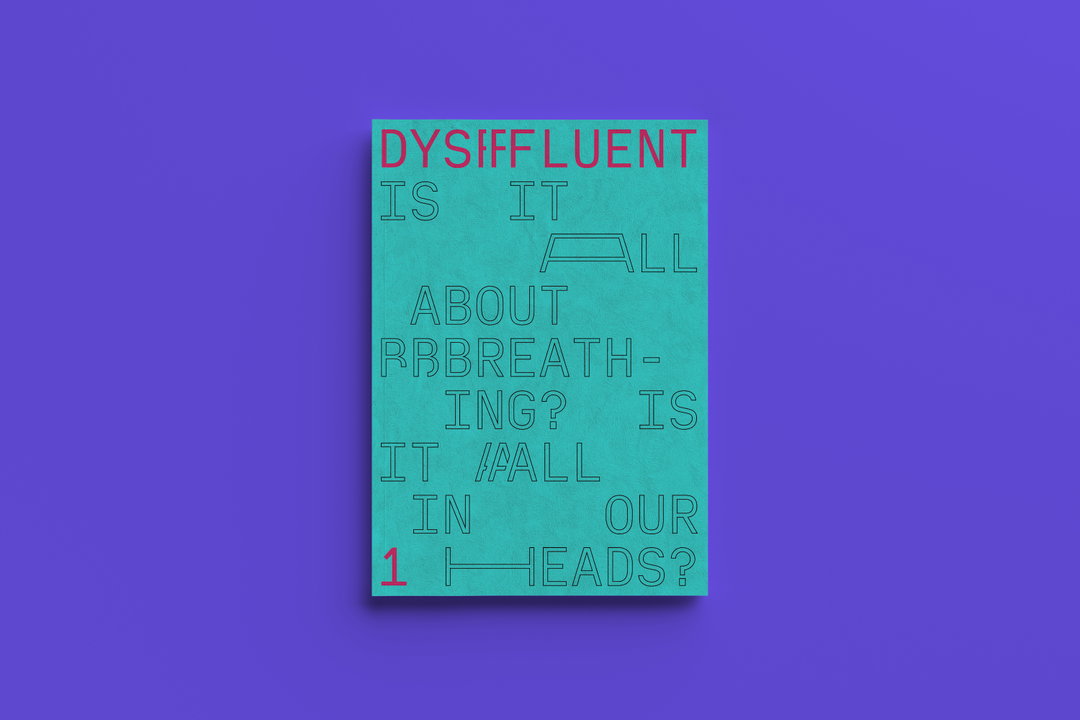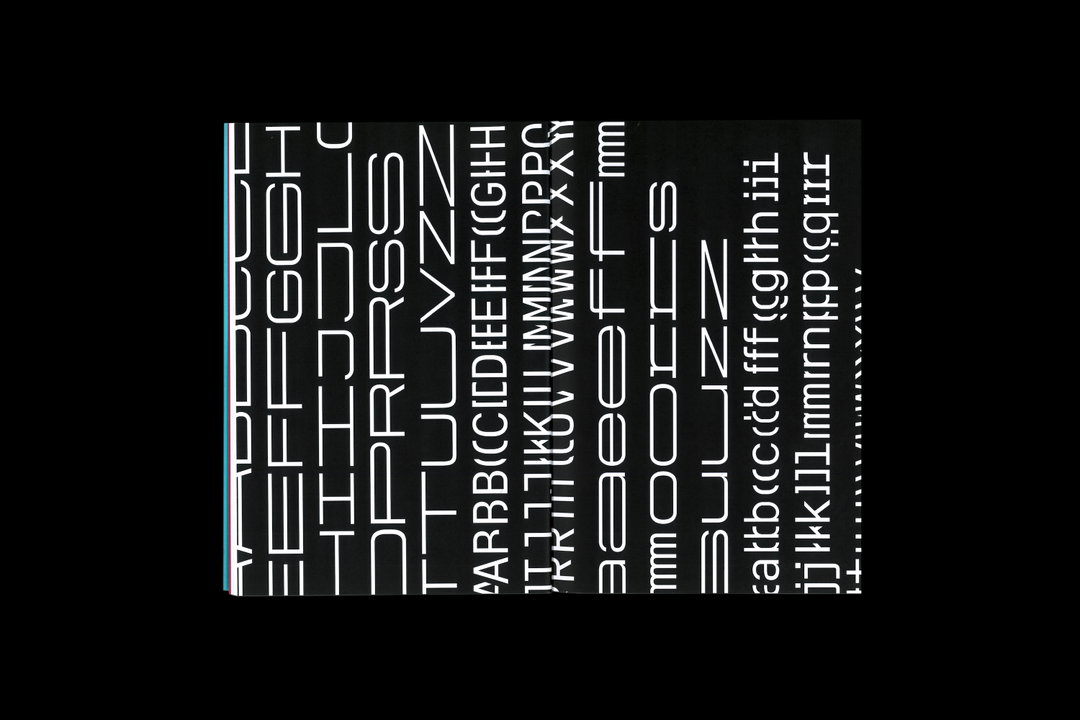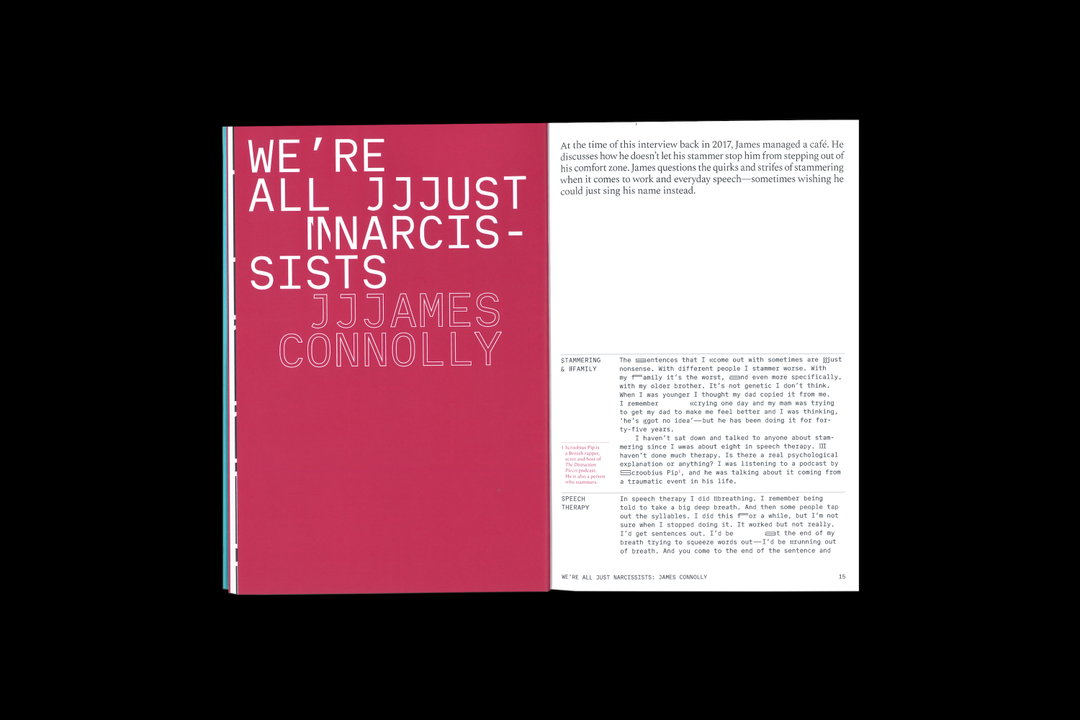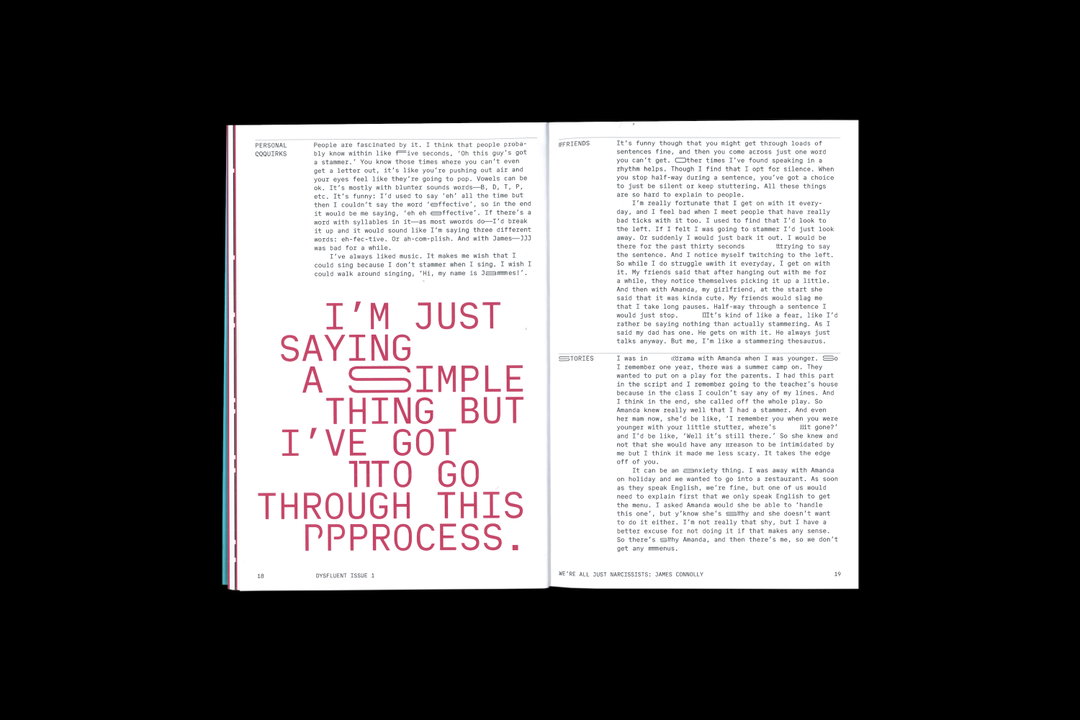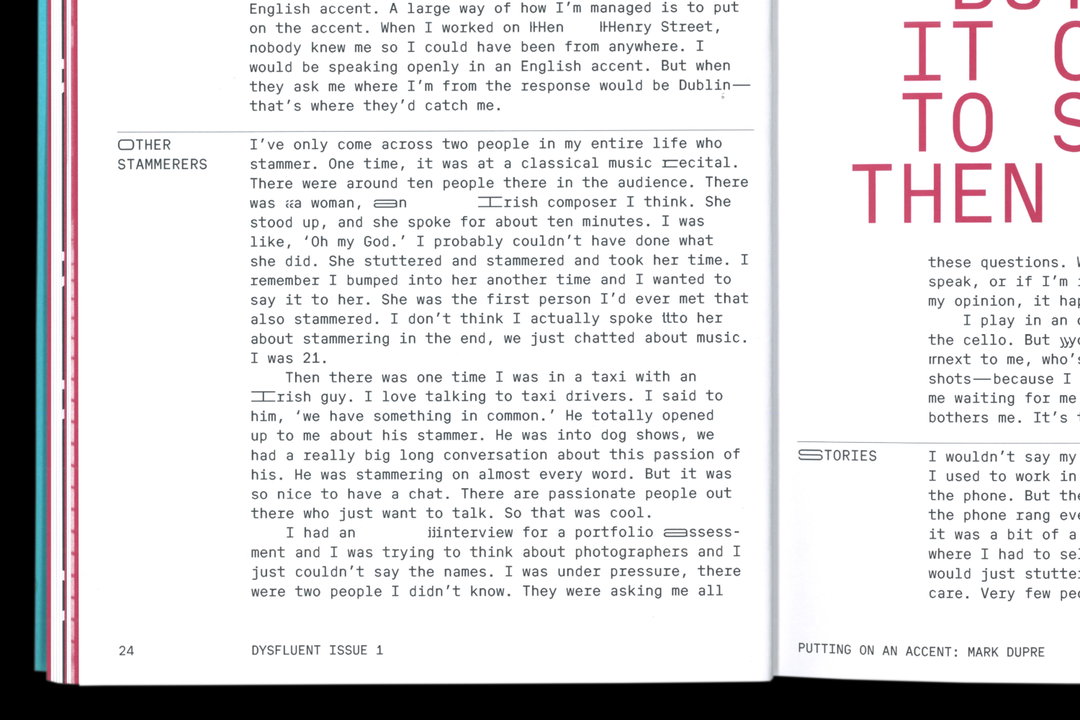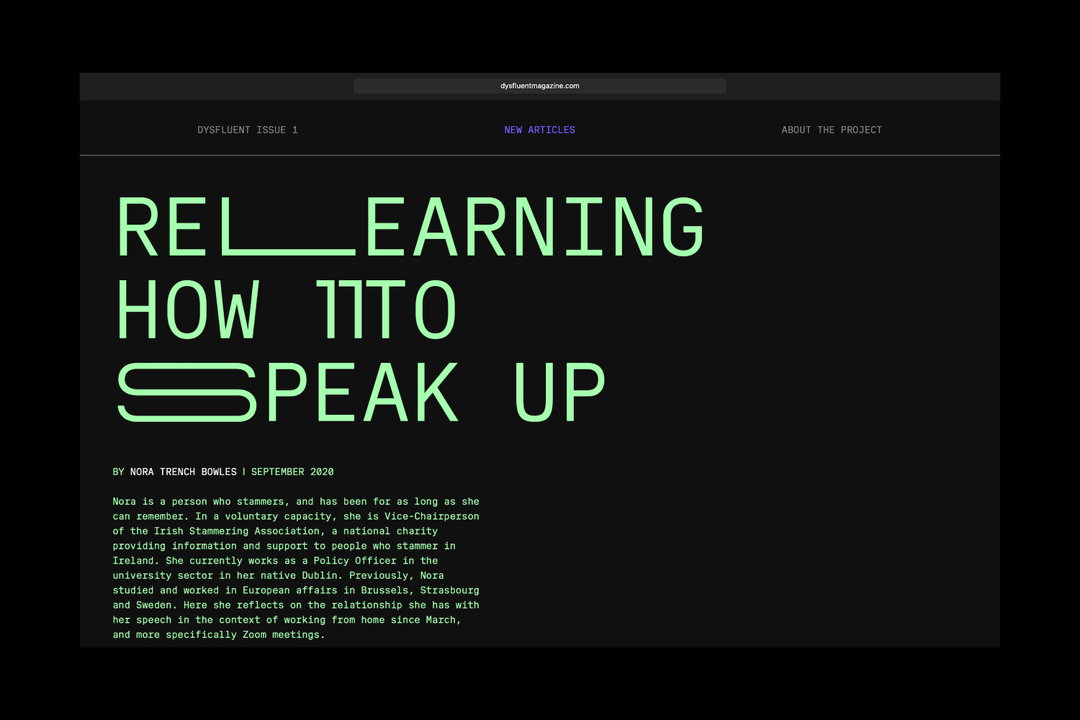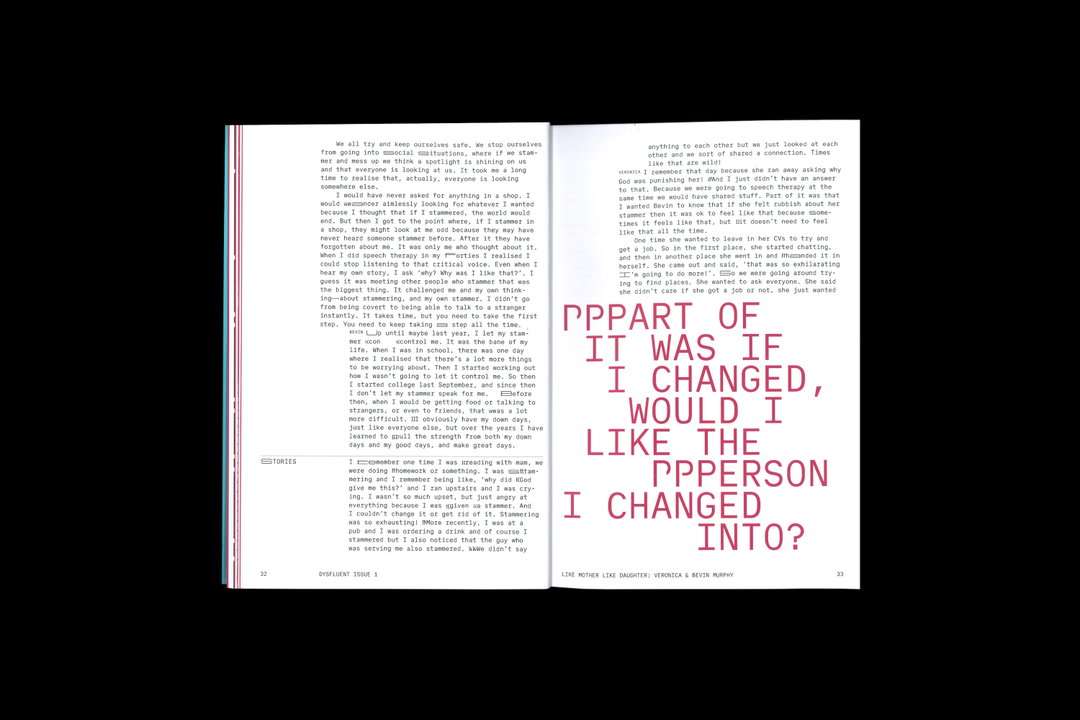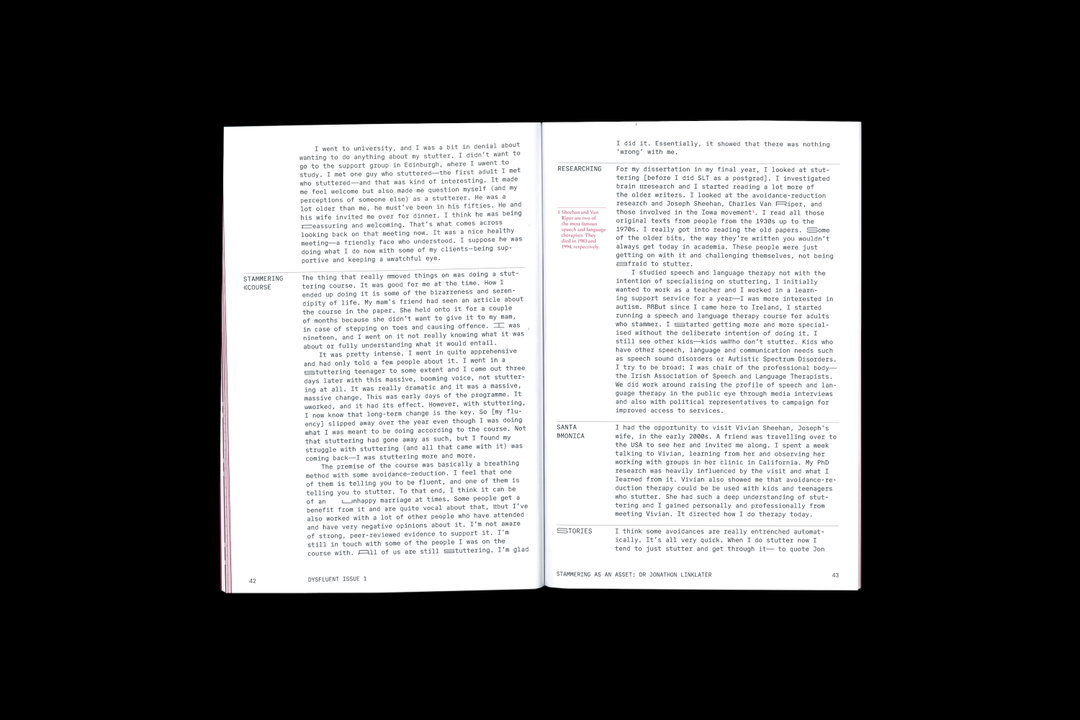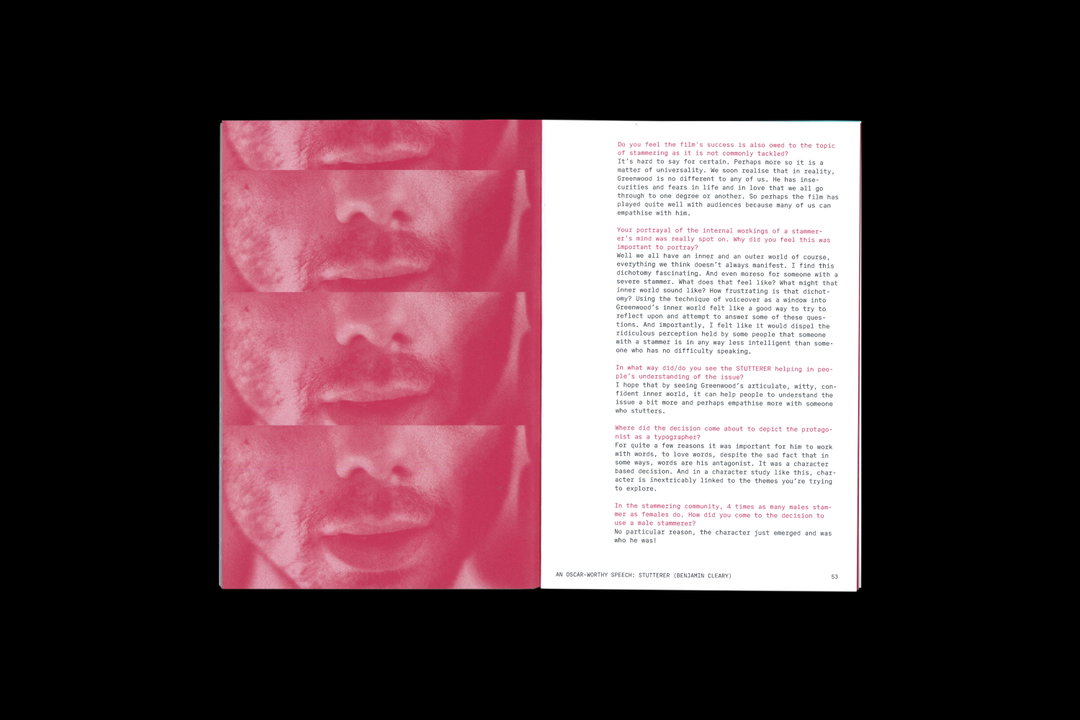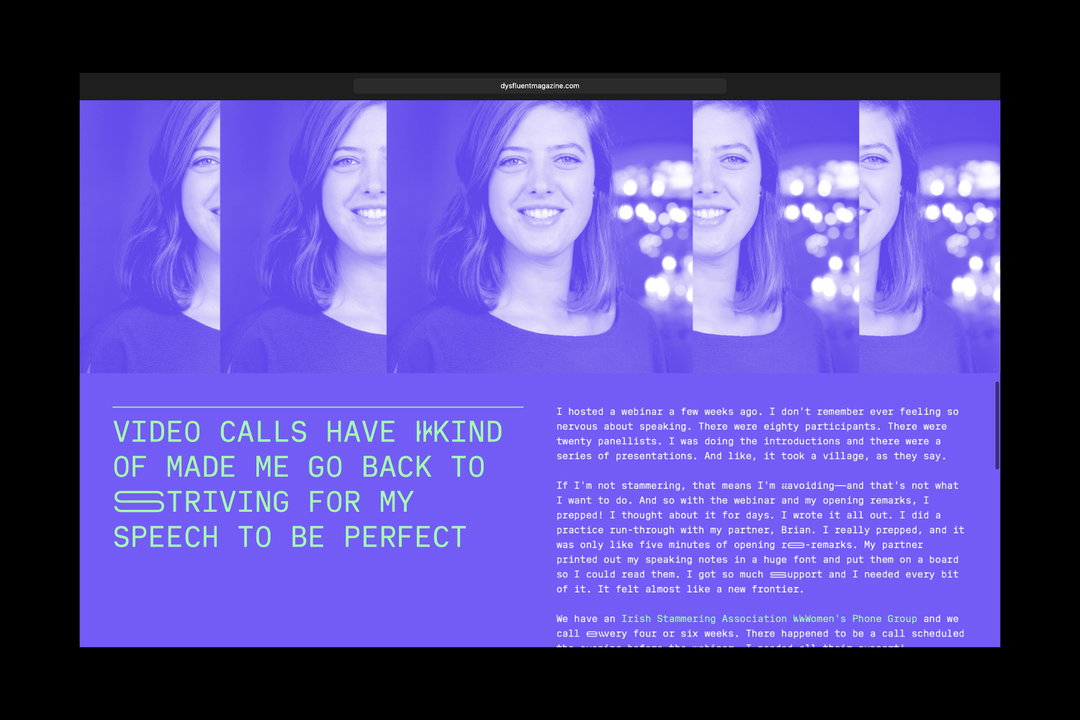
Stretched and repeated, Dysfluent Mono is a typeface that embodies what it means to have a stammer
After launching Dysfluent magazine a year ago, the publication’s editor talks us through his continued quest to better understand his own speech.
Last year, Conor Foran and Bart Rzeznik launched Dysfluent, an independent magazine about stammers. Providing a platform for people to share honest stories about their experiences with it – whether they’re “awkward, funny, infuriating or heart-warming,” says editor Conor – the debut issue was an immensely personal endeavour that soon evolved into a bespoke typeface named Dysfluent Mono.
Conor has stammered his entire life. After studying visual communication in NCAD, Dublin and moving to London two years ago, he began working as a junior designer at 4Creative. Bart is a graphic design graduate from Camberwell College of Arts and a freelance project manager. “We’re actually a couple and our collaboration for Dysfluent was borne out of that,” Conor says, noting how his own personal experiences on the topic of stutters plus Bart’s affinity for printed matter drove the process. What initially started as a university project “in that typical university attempt to work on something personal and unique” soon turned into a remedial outlet. A form of self-therapy, as Conor puts it, as for the first time he began investigating his speech.
Conor has always shown an interest in typography and the ways in which sound is visualised through design, two elements that spearheaded the creation for Dysfluent – a name that’s similar to the term disfluency, meaning the disruption in the ongoing flow of speech. This idea to represent his stammer in a visual language formed the basis of the project, where topics of stammering pride and acceptance proved just how much disfluency needn’t be stigmatised in wider parts of society. “Visually representing my stammer by repeated or stretching the letters seemed defiant at the time, almost as if I had given the middle finger to these words and letters that cased me so much grief for so many years,” he tells It’s Nice That. “Rendering my own name in a way I ‘recognised’ helped me to stop fearing it, as so many people who stammer can find it tricky to say their own name.” Conor still finds himself stammering, “of course,” but the process of making Dysfluent alleviated a lot of the judgement associated with it. “I’ve become much more open abut my speech; it’s allowed me to rethink how many stammer defines me, if at all.”
This personal quest to dive deep into the visual tones of his stammer led to the creation of its very own typeface, one that “emulates the voice of the speaker”. As mentioned, the font features signature stretches and repeating turns, used to evoke the definition of a stammer or stutter – that which is neurological yet presents itself as something that’s physical to those non-stammering. “A lot of the stammering experience is owed to feelings of shame, guilt and embarrassment,” says Conner. “It is a massively personal experience as stammering can differ from person to person.”
More than just a literal translation of stammered speech – which by no doubt is a hard topic to materialise – it’s also an interpretation of it, pulled from the founder’s own experiences as well as through conversations with those featured in the magazine. “Typography in general does this; there are so many sounds that we make that are not explicitly represented through letterforms,” he says. “Instead, Dysfluent Mono embodies what it means to have a stammer, as it helps deliver these intensely personal and revealing interviews in the magazine.” Utilising a typeface that is multifaceted in its approach only heightens these design intentions, and allows room to express personal narratives and the voice of the interviewee at hand.
One of Conor’s biggest goals was to have Dysfluent available in public settings, like magazine shops, in order to make the information more accessible for those who stammer. Having achieved that goal, his next quest is to make the typeface usable for outside sources – this does cause some issues, however, as it’s very much linked to the context of the magazine. A few tweaks, he says, and it might be ready for outside use. “While still very much work-in-progress and an evolving project as I learn more about type design, I created a system of letterforms which only touch the surface of this interpretation of stammered speech.” Toying with distortion and legibility, the concept of reading letterforms is what sits at the base of this experimentation.
After extensive research and experimentation, Conor realised that the best means of visualising a stammer is through conventional type design, achieved through repetitions, elongations and blocks that are not too dissimilar from the phasing of the moon near completion. “To see the typeface in this way means it is grounded in a positive interpretation, instead of being viewed as fragmented type which perpetuates the concept of stammered speech as inherently broken,” he concludes. “Above all, my aim with Dysfluent Mono is to create something that speaks to people and at the same time is a beautiful thing in its own right.”